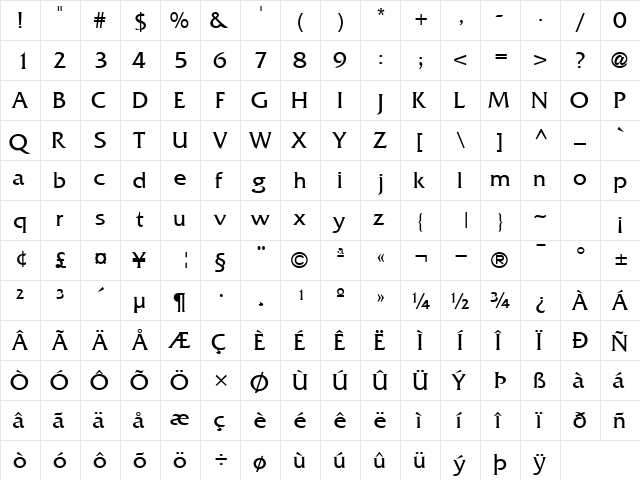
MusterSSK Regular
MusterSSK takes a measured approach to typography — its balanced proportions and neutral character make it a reliable workhorse for both digital and print work.